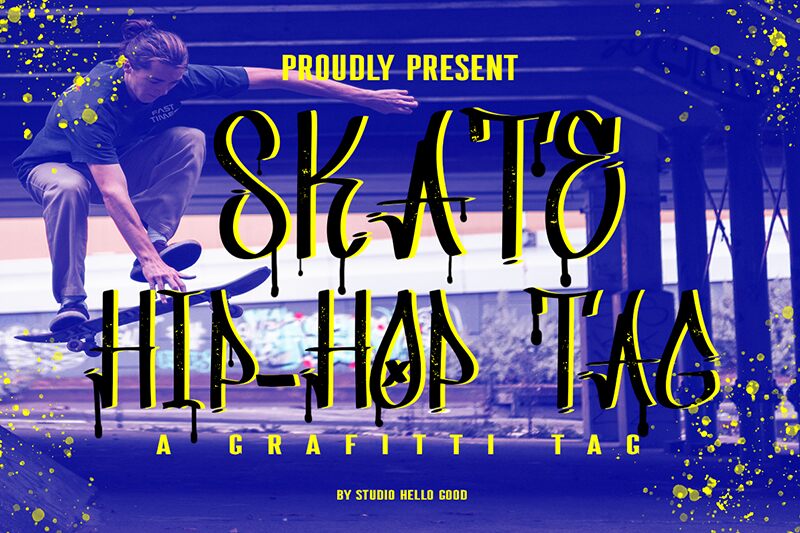
Skate Hip Hop Tag
Skate Hip Hop Tag font by Studio Hello Good is a graffiti-style creation that brings a condensed structure into play. While some chaotic vibes are noticeable, the majority of the typeface is based on Gothic influences with a few cut corners. Uniquely designed, capitalize on its expressive flair, edgy aesthetic and urban style influences in your upcoming projects.
With this font, you can highlight headlines for magazines, newspapers, branding designs for beverages (soda), sports wear manufacturers and street food spots. Use it for games’ covers that talk about skating and hip hop or any other that needs a cool memorable cover/packaging. Go all in customizing posters too.